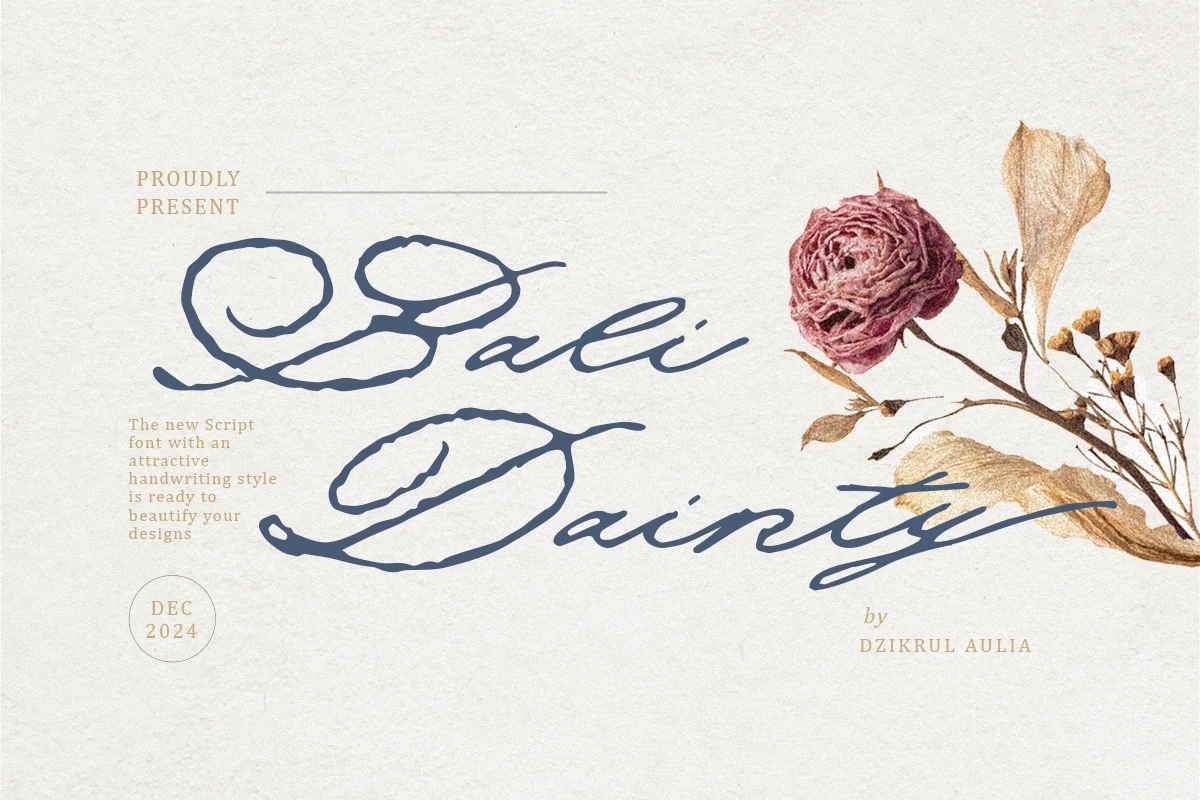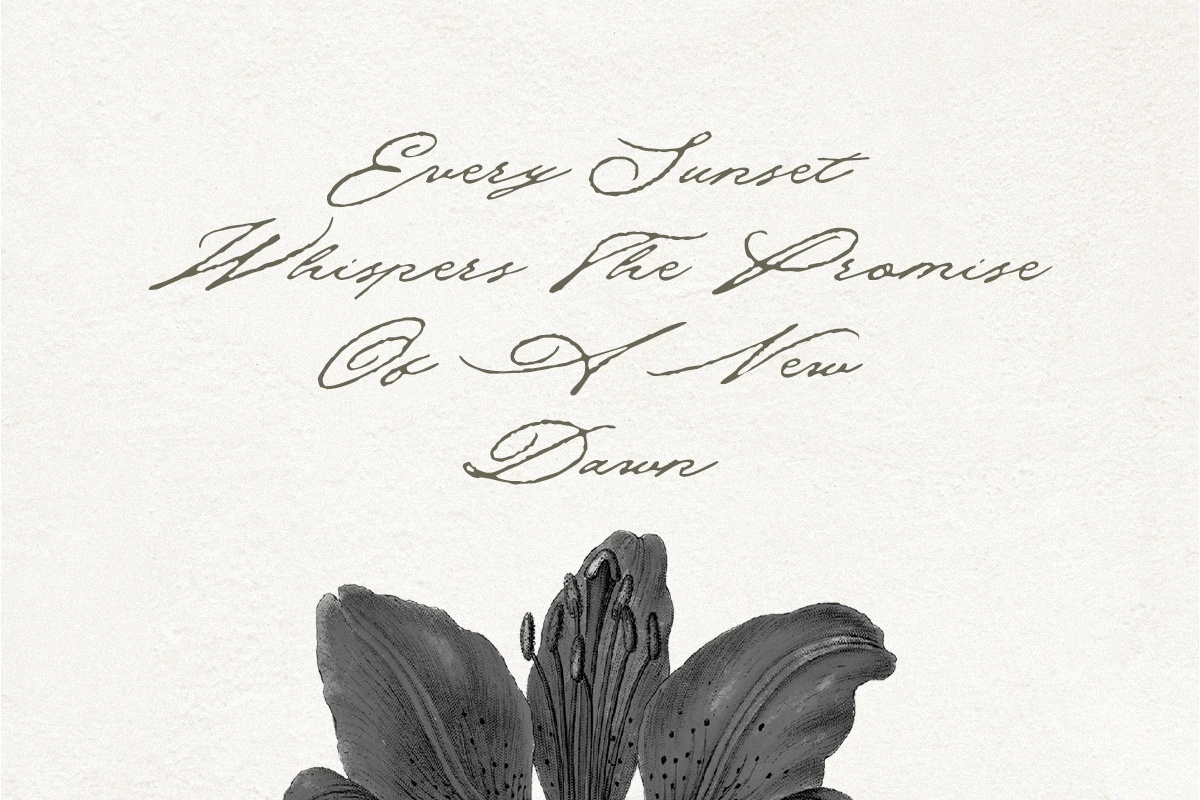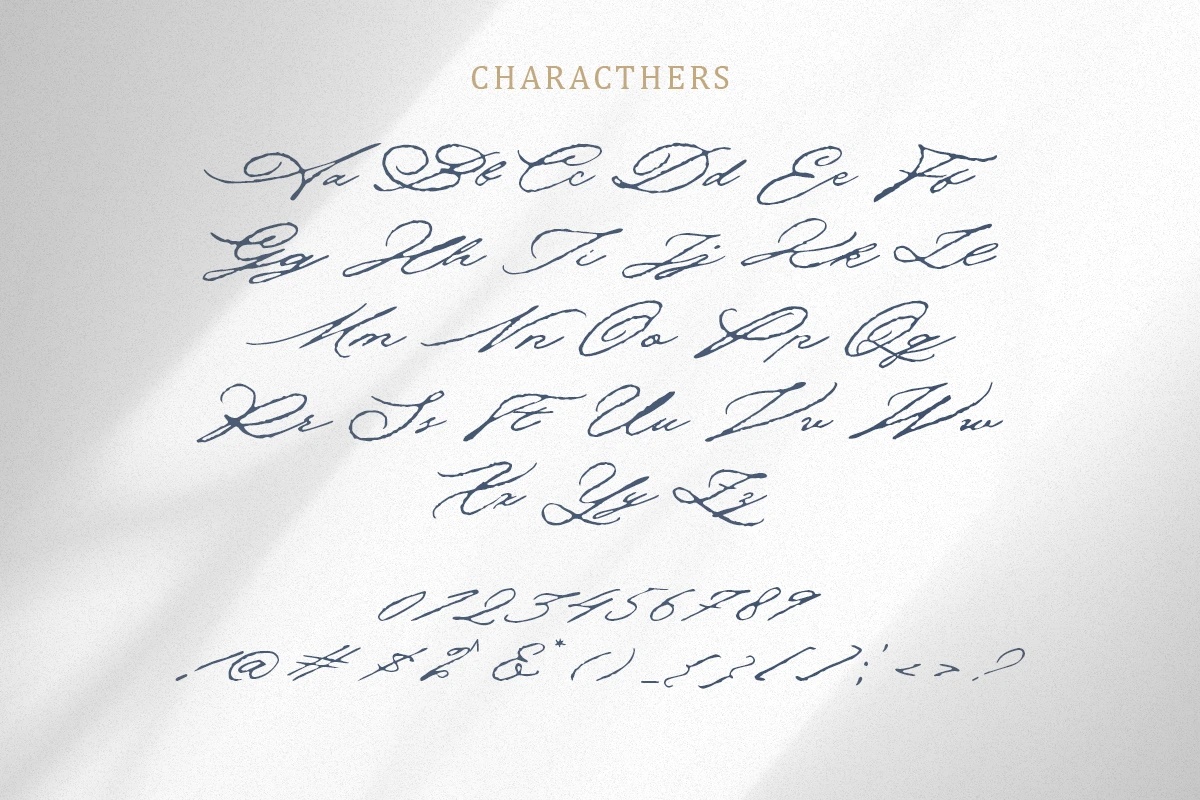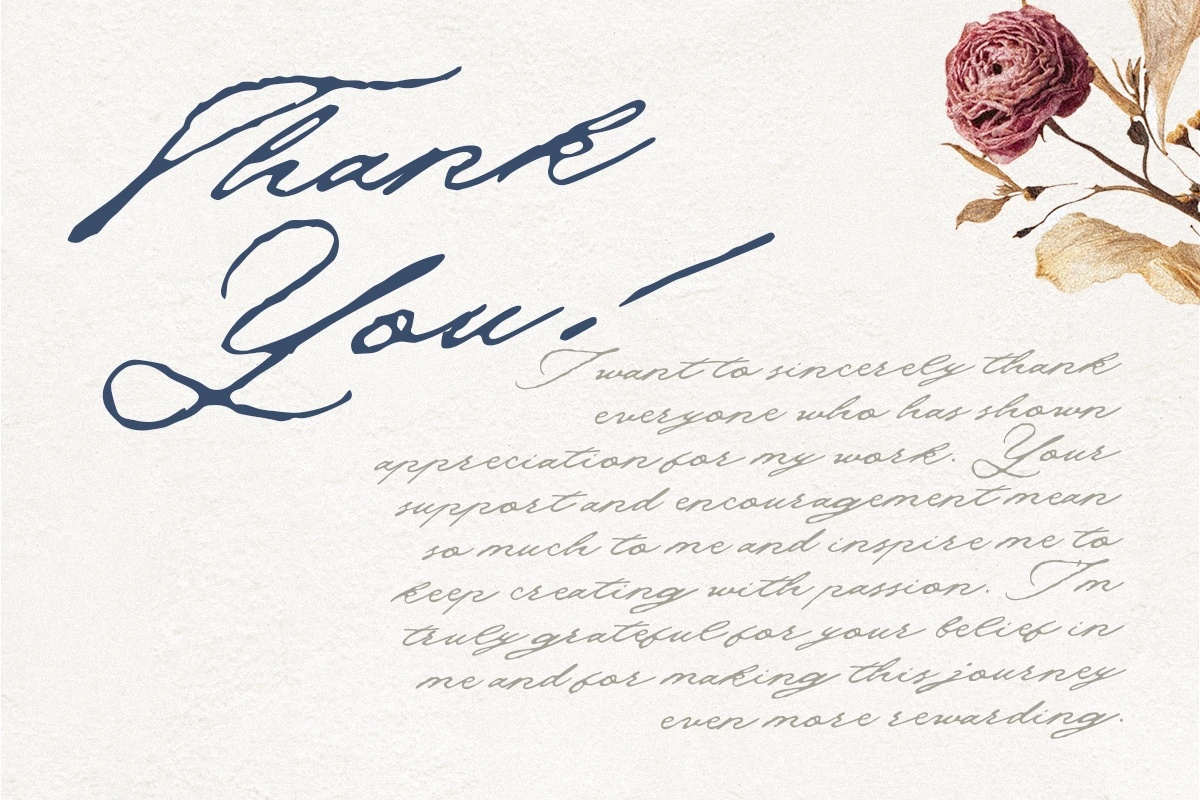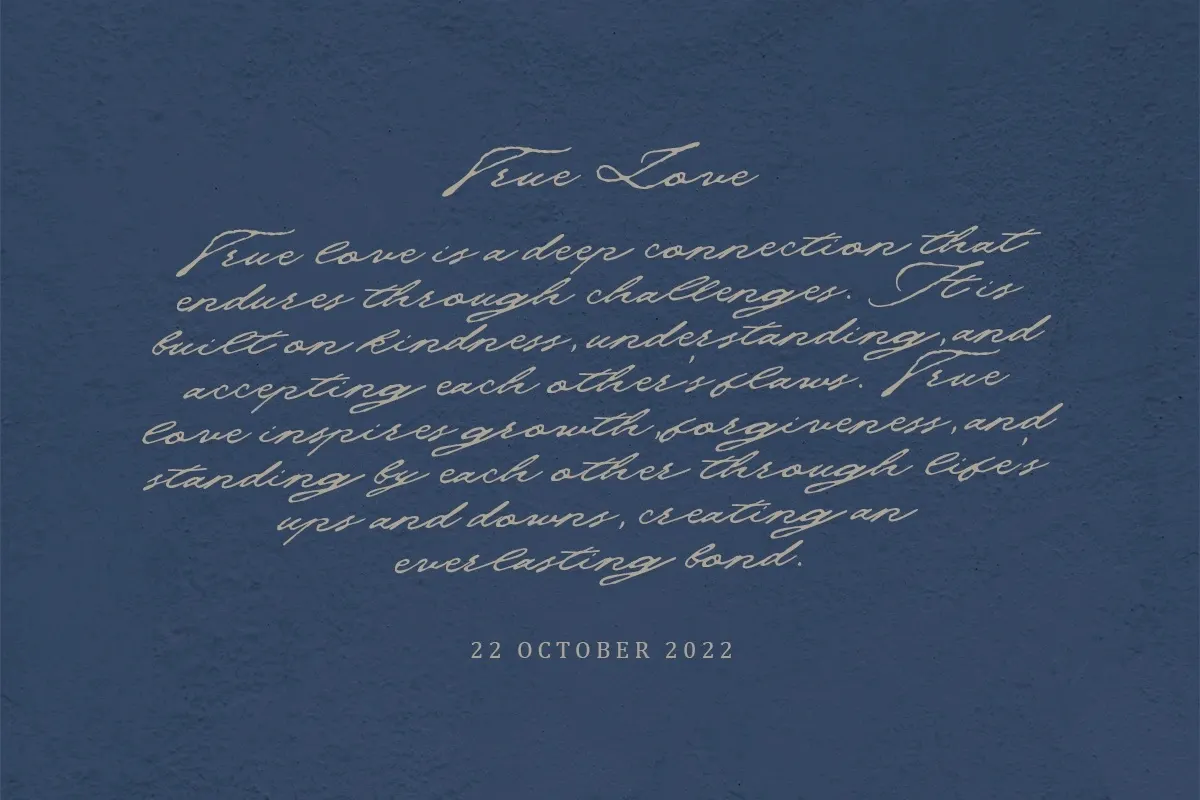
Bali Dainty - Elegant Signature Script Font
Bali Dainty – Elegant Signature Script Font is a graceful handwritten typeface designed to bring a refined yet natural touch to modern design projects. Inspired by authentic signature lettering, this script font features flowing strokes, soft curves, and subtle imperfections that create a beautifully handcrafted appearance.
Its expressive lines and delicate movement give Bali Dainty a charming personality while maintaining elegance and readability. The slightly rough edges add character and authenticity, making the font feel organic and personal—perfect for designs that require warmth, style, and sophistication.
Whether used for branding, invitations, quotes, or editorial layouts, Bali Dainty adds a stylish handwritten feel that elevates the visual identity of any project.
- Elegant handwritten signature style
- Uppercase & Lowercase characters
- Numbers, punctuation & symbols
- Natural handwritten strokes